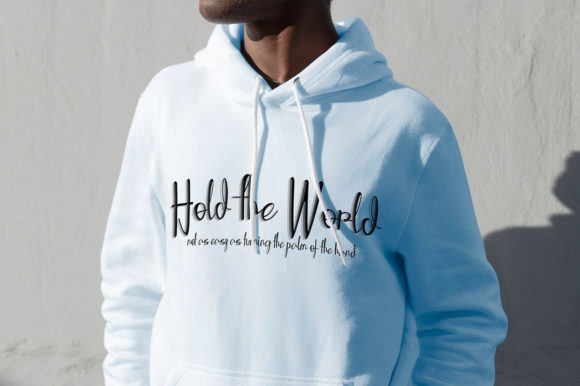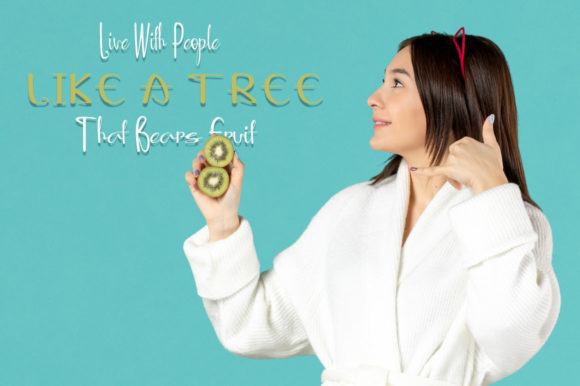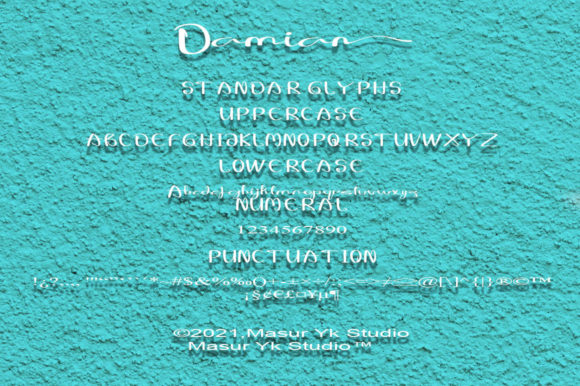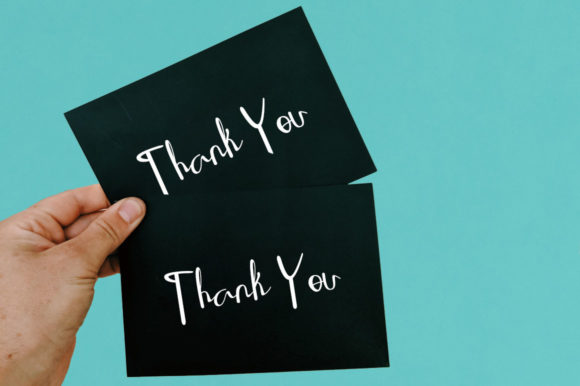
Introducing Damian Font: Elevate Your Designs with Elegance and Class
In the world of typography, fonts play a crucial role in conveying the tone and aesthetic of a design. For those seeking a script font that embodies elegance and sophistication, look no further than Damian Font. This lovely and delicate font is specifically crafted to add a touch of refinement and freshness to your designs, making it an ideal choice for creatives and designers alike.
The Charm of Damian Font
Damian Font is a script font that boasts a unique blend of classic and modern elements. Its elegant strokes and delicate lines evoke a sense of luxury and poise, making it perfect for designs that require a high level of sophistication. Whether you’re working on a branding project, a wedding invitation, or a packaging design, Damian Font is sure to impress.
Key Features of Damian Font
- Elegant and Delicate: Damian Font features smooth, flowing lines that give it a refined and sophisticated look.
- Highly Versatile: This font can be used for a wide range of design projects, from logos and branding to invitations and packaging.
- Easy to Read: Despite its delicate nature, Damian Font is highly legible, making it perfect for both headings and body text.
- Unique Character Set: Damian Font comes with a range of characters, including ligatures and alternate glyphs, allowing you to add a personal touch to your designs.
Uses of Damian Font
Damian Font’s versatility makes it an excellent choice for various design applications. Here are a few examples:
- Branding and Logos: Use Damian Font to create a sophisticated and memorable brand identity.
- Wedding Invitations: Add a touch of elegance to your wedding invitations and stationery with Damian Font.
- Packaging Design: Elevate your packaging designs with Damian Font’s refined and luxurious feel.
- Advertising and Marketing: Use Damian Font to create eye-catching ads and marketing materials that exude class and sophistication.
Tips for Using Damian Font Effectively
To get the most out of Damian Font, here are a few tips to keep in mind:
- Pair with Neutral Colors: Combine Damian Font with neutral colors like black, white, or gray to let the font’s elegance shine.
- Experiment with Ligatures: Take advantage of Damian Font’s ligatures and alternate glyphs to add a unique touch to your designs.
- Use for Headings and Titles: Damian Font is perfect for headings and titles, so use it to create a lasting impression.
In conclusion, Damian Font is a beautiful and refreshing script font that is sure to elevate your designs with its elegance and class. With its delicate strokes, versatile nature, and highly legible design, Damian Font is an excellent choice for designers and crafters seeking to add a touch of sophistication to their work. So why wait? Download Damian Font today and experience the power of elegant typography for yourself.